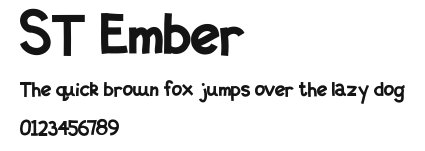
• Font Name: ST Ember
• Font Style: ST Ember
• Full Font Name: ST Ember
About ST Ember.ttf
ST Ember.ttf is a modern, elegant sans-serif font designed for ultimate readability and visual harmony. Perfect for branding, headlines, web design, and print materials.